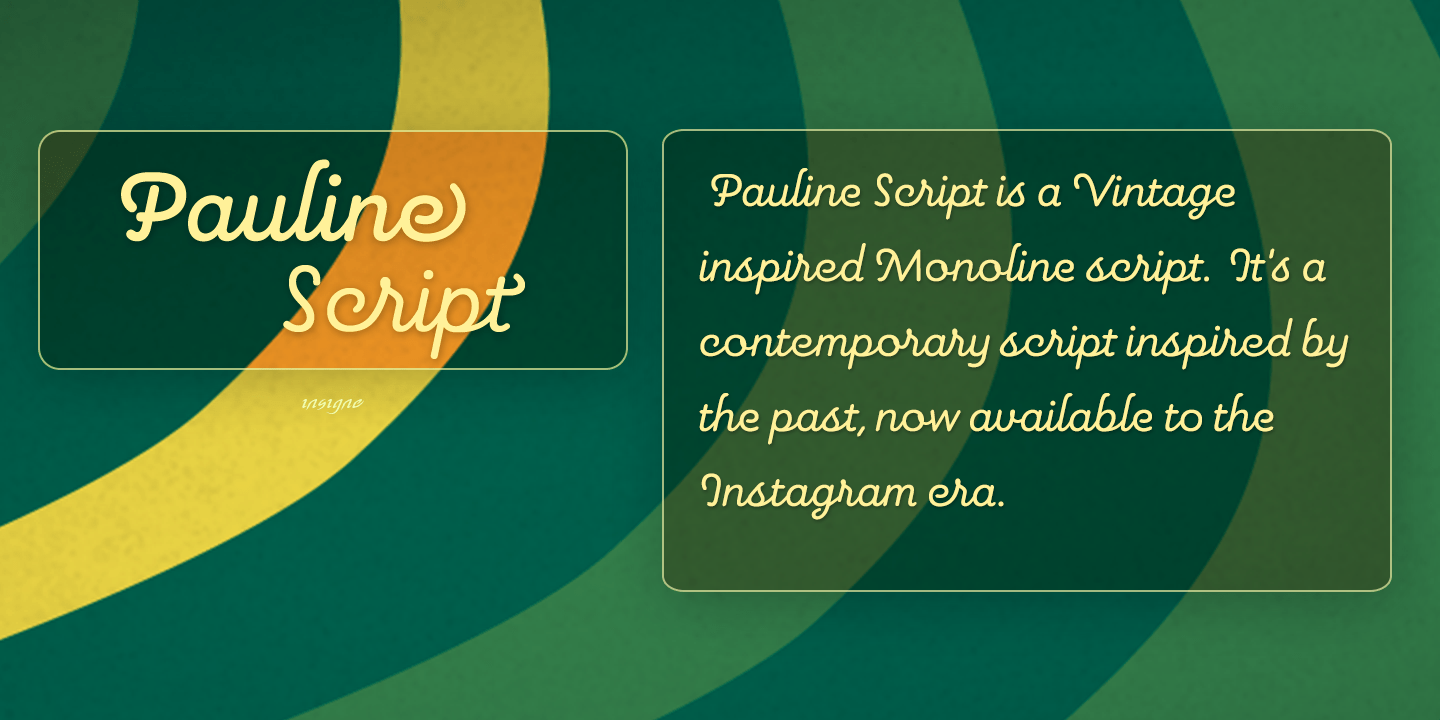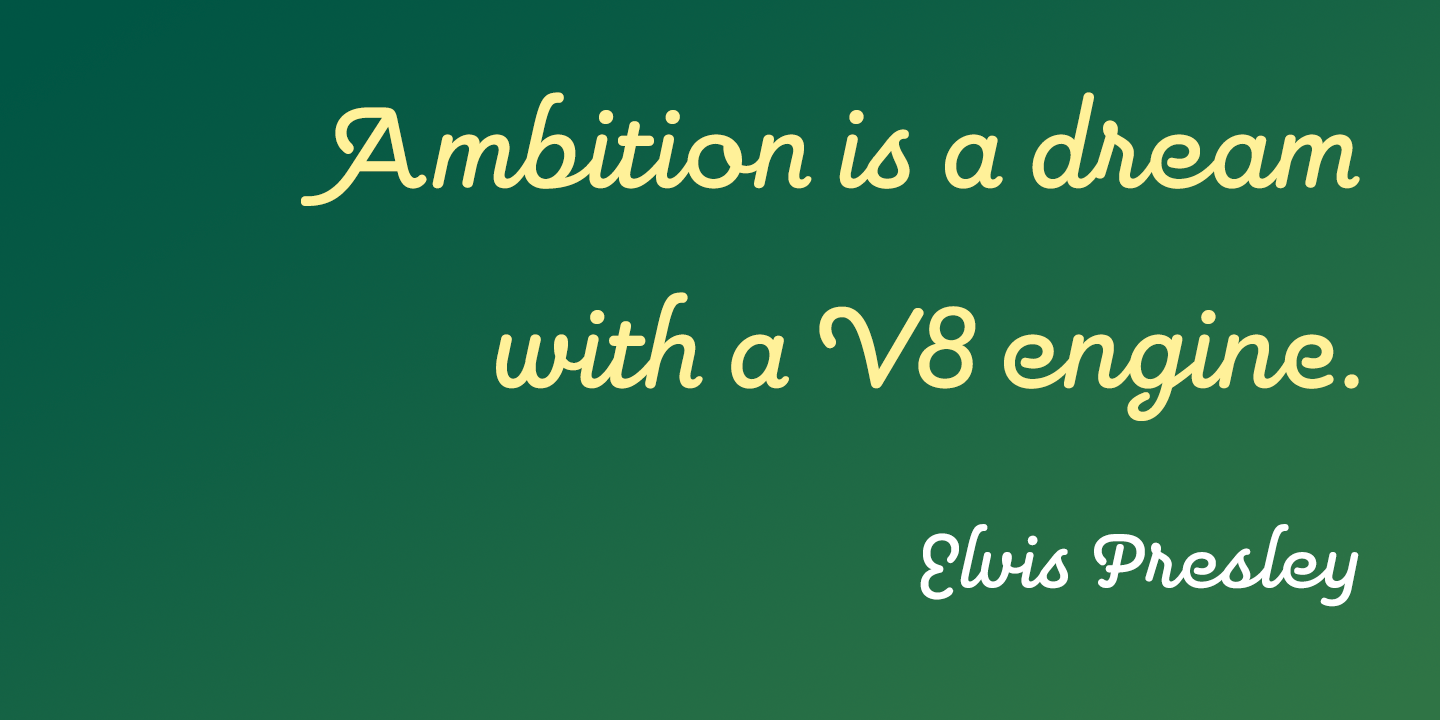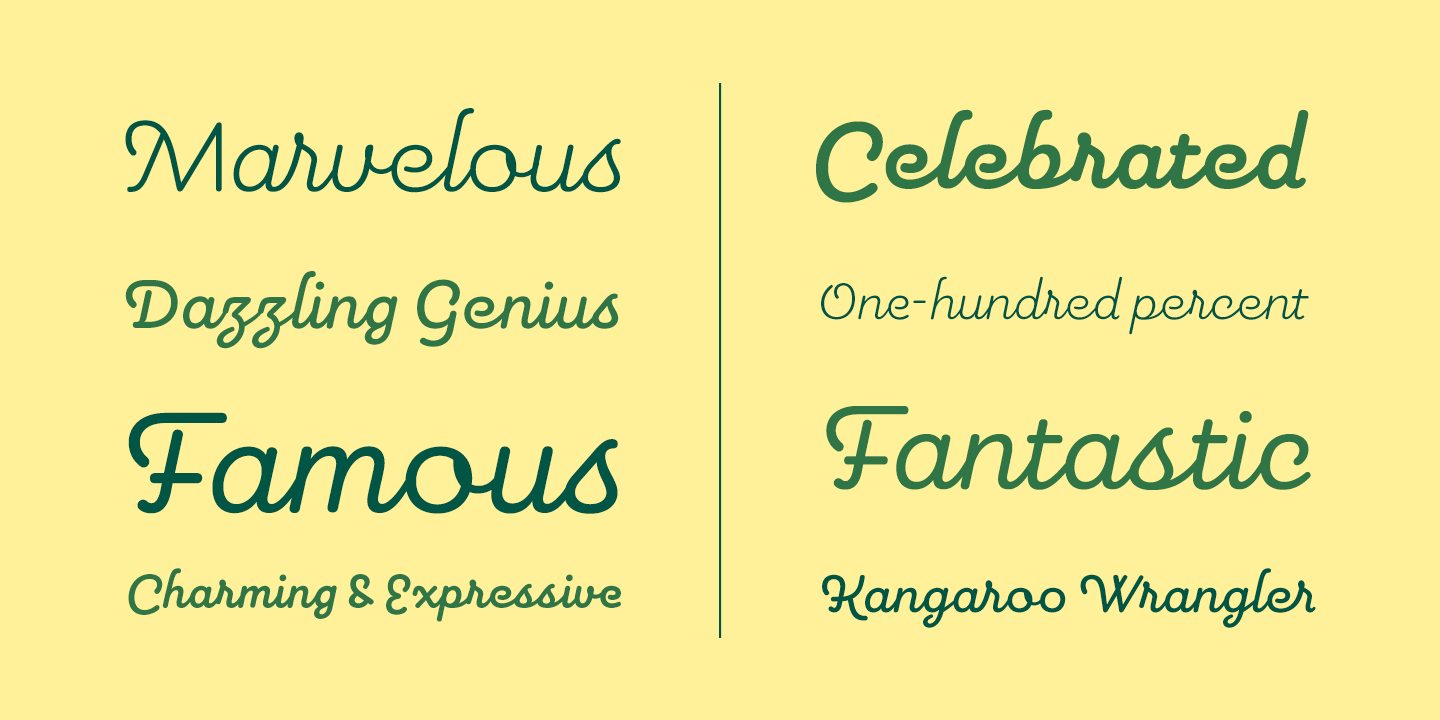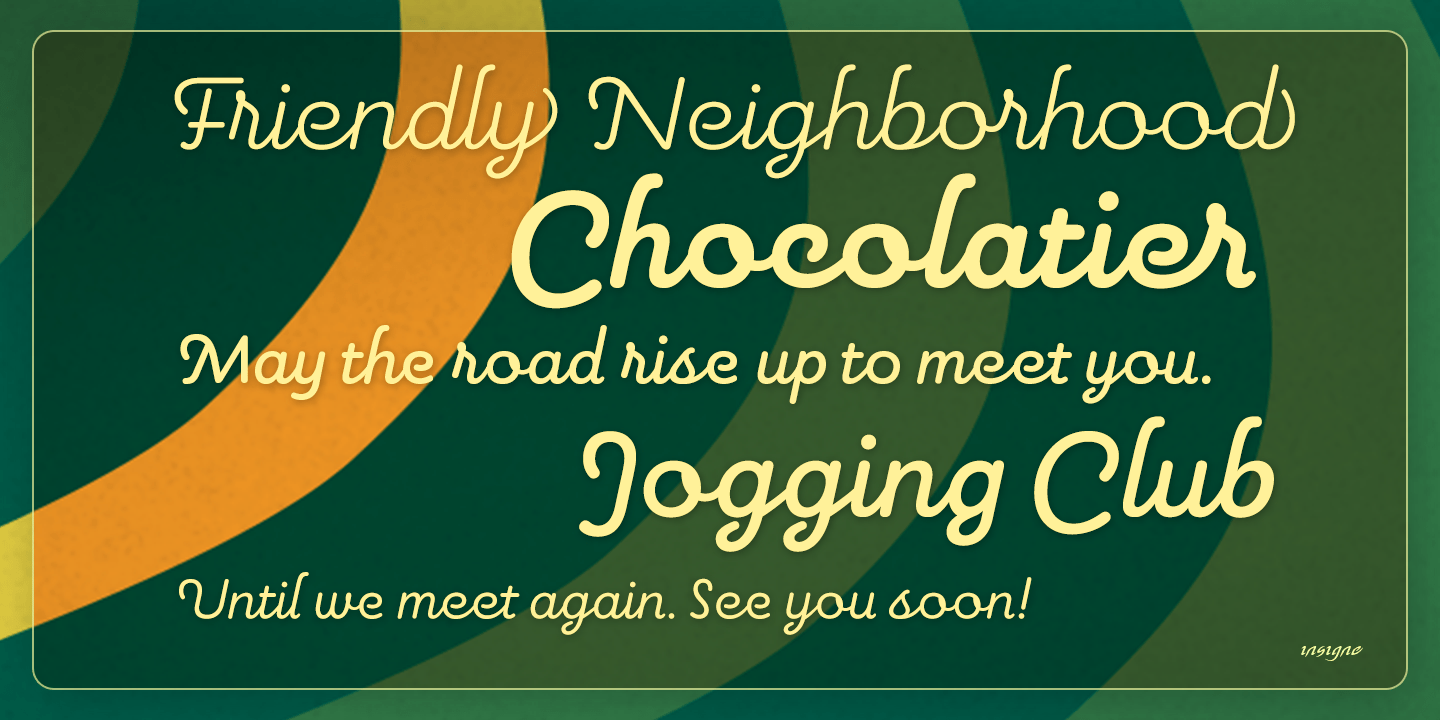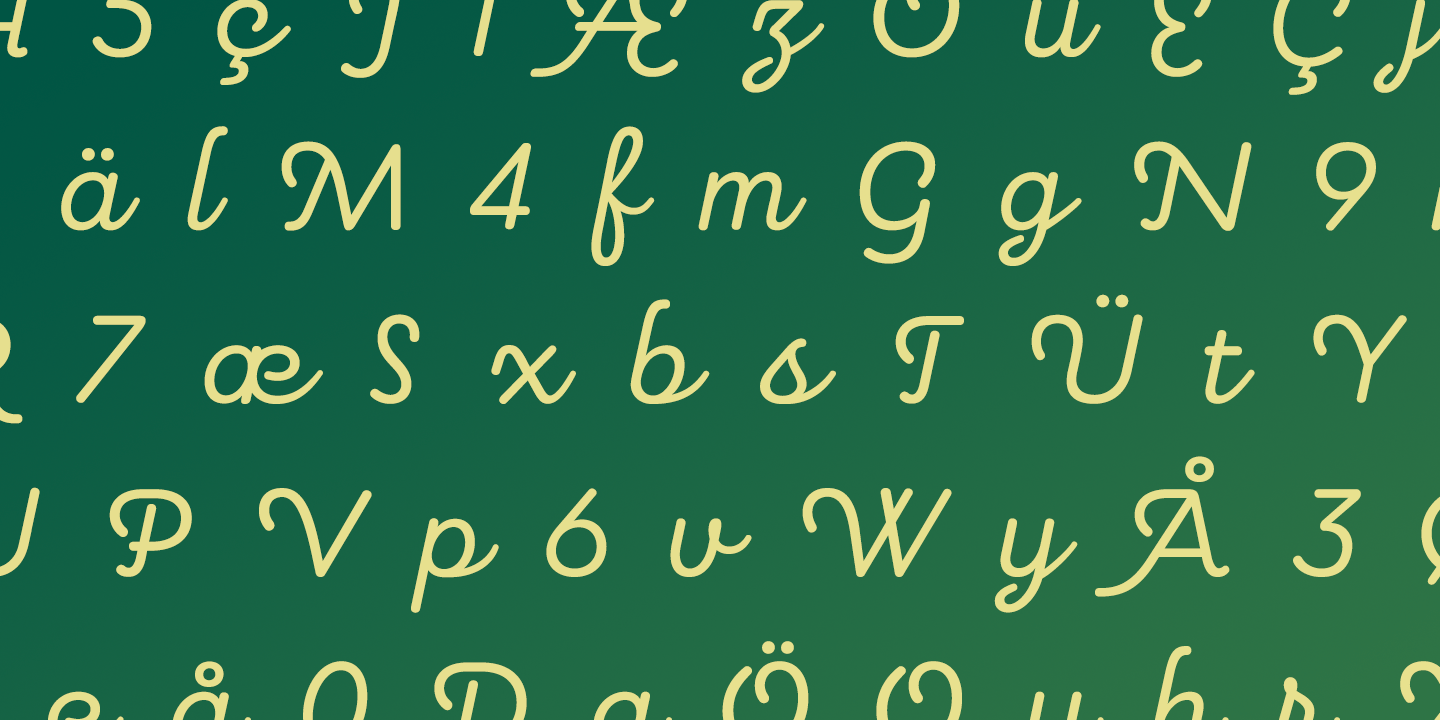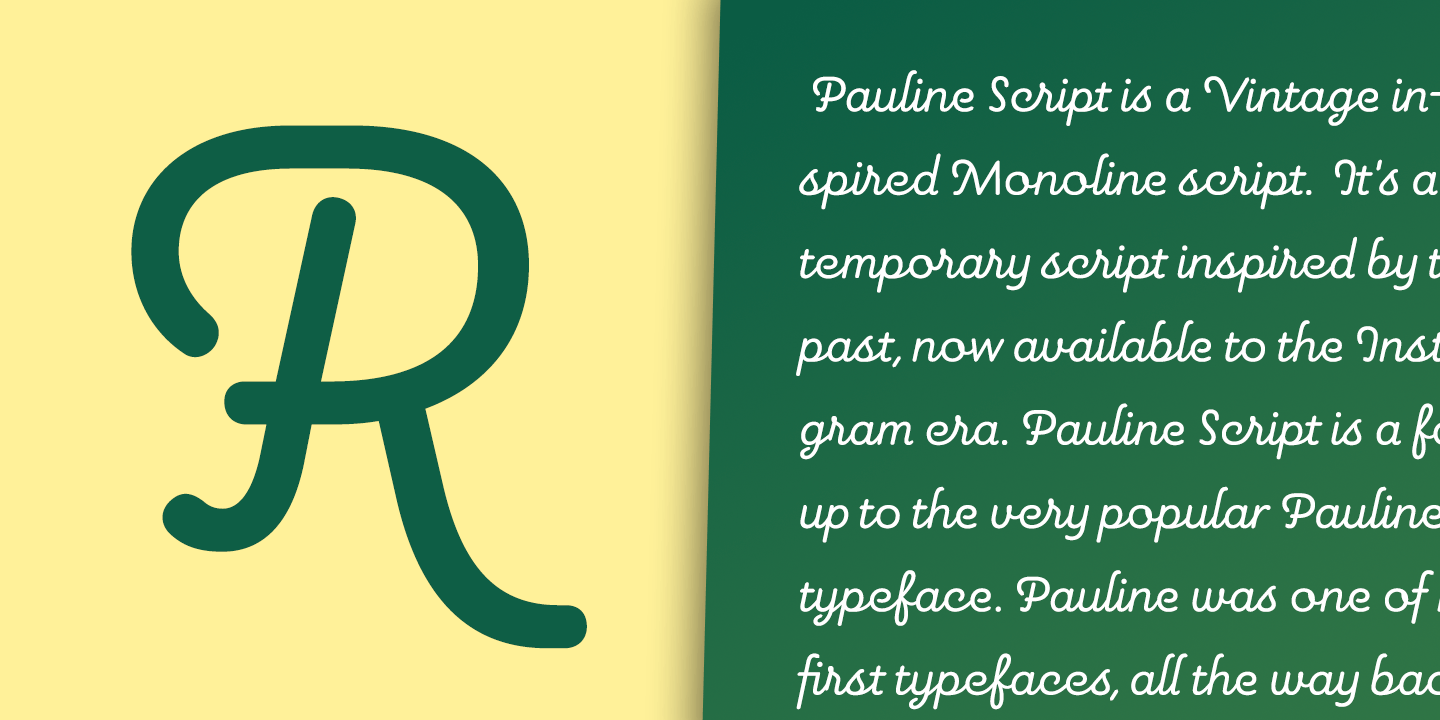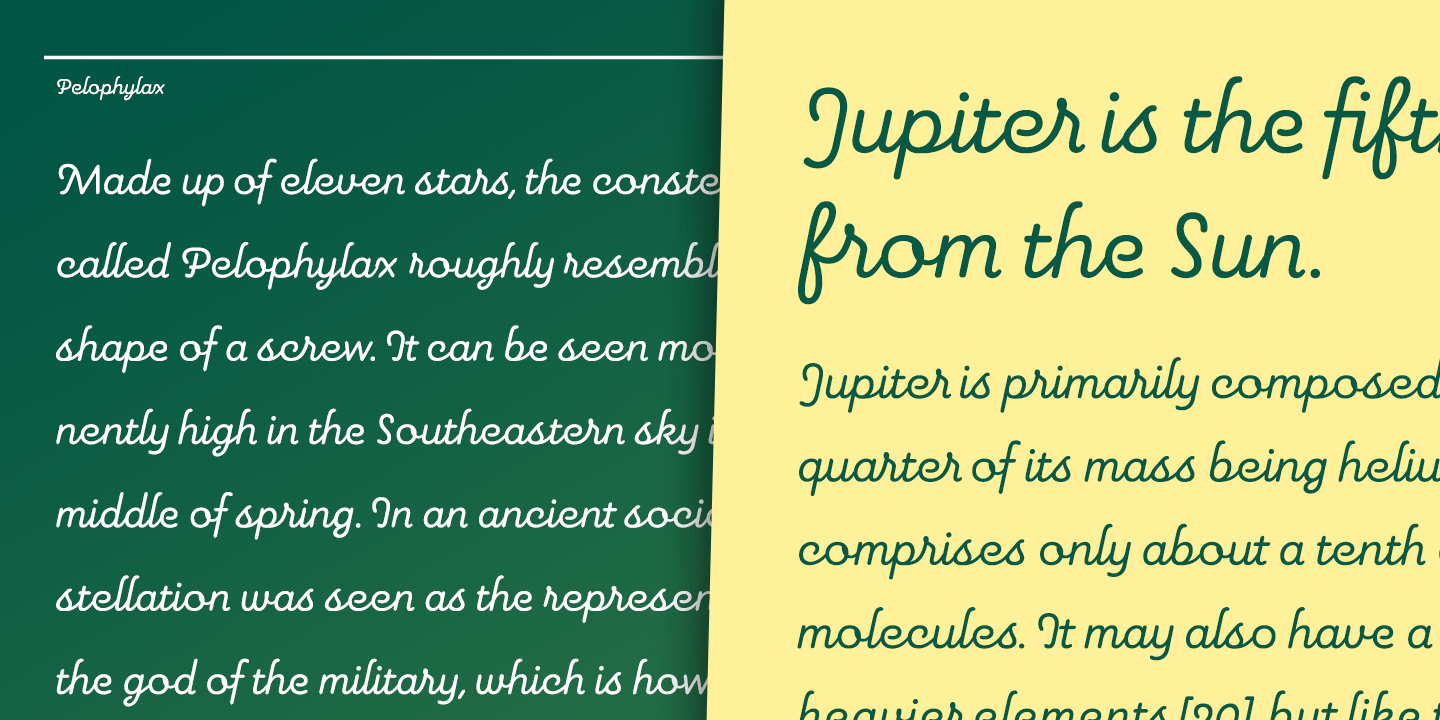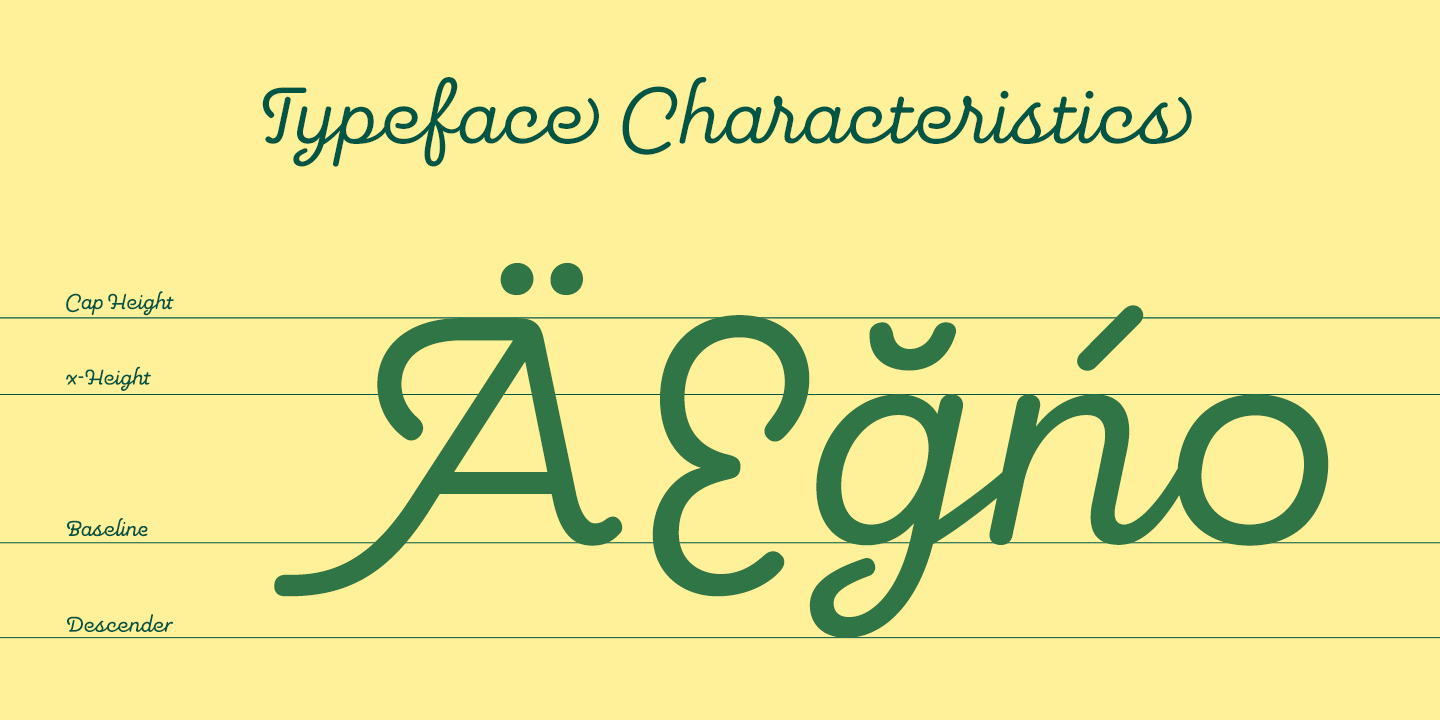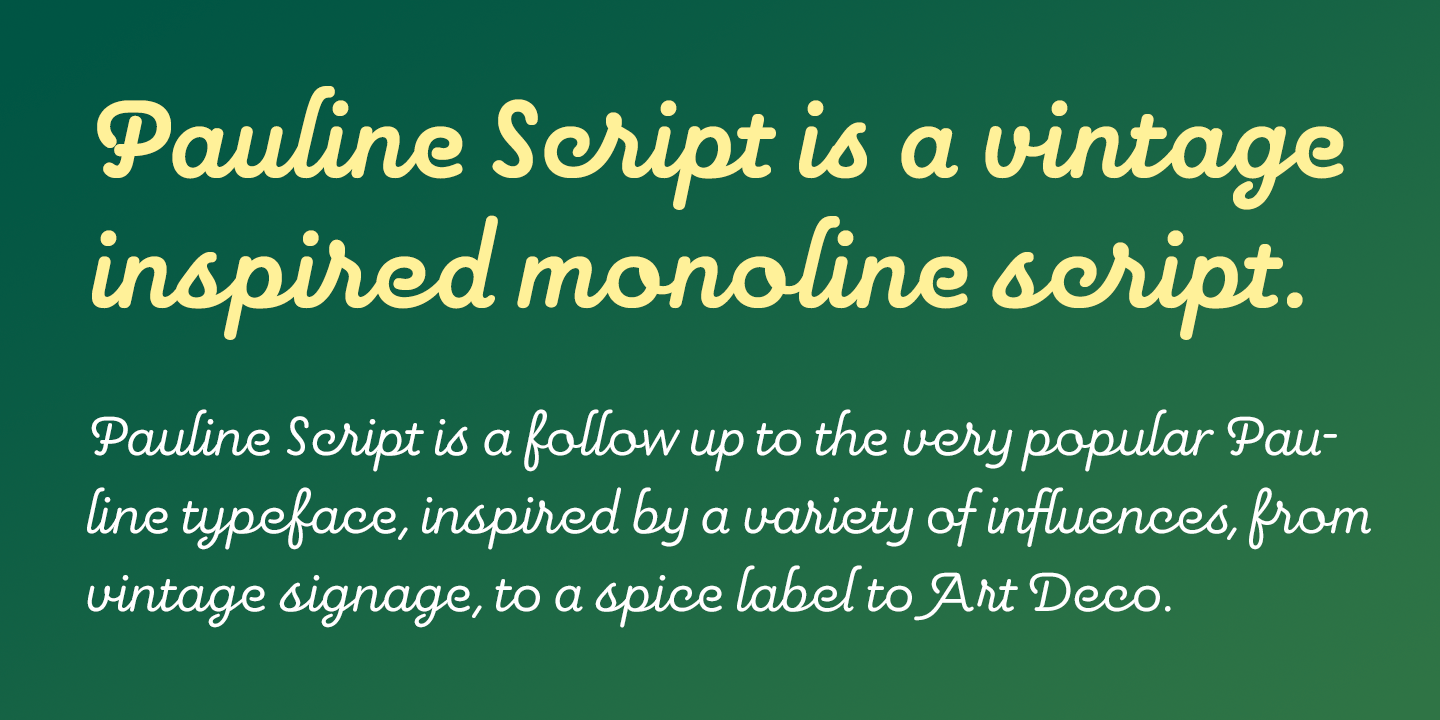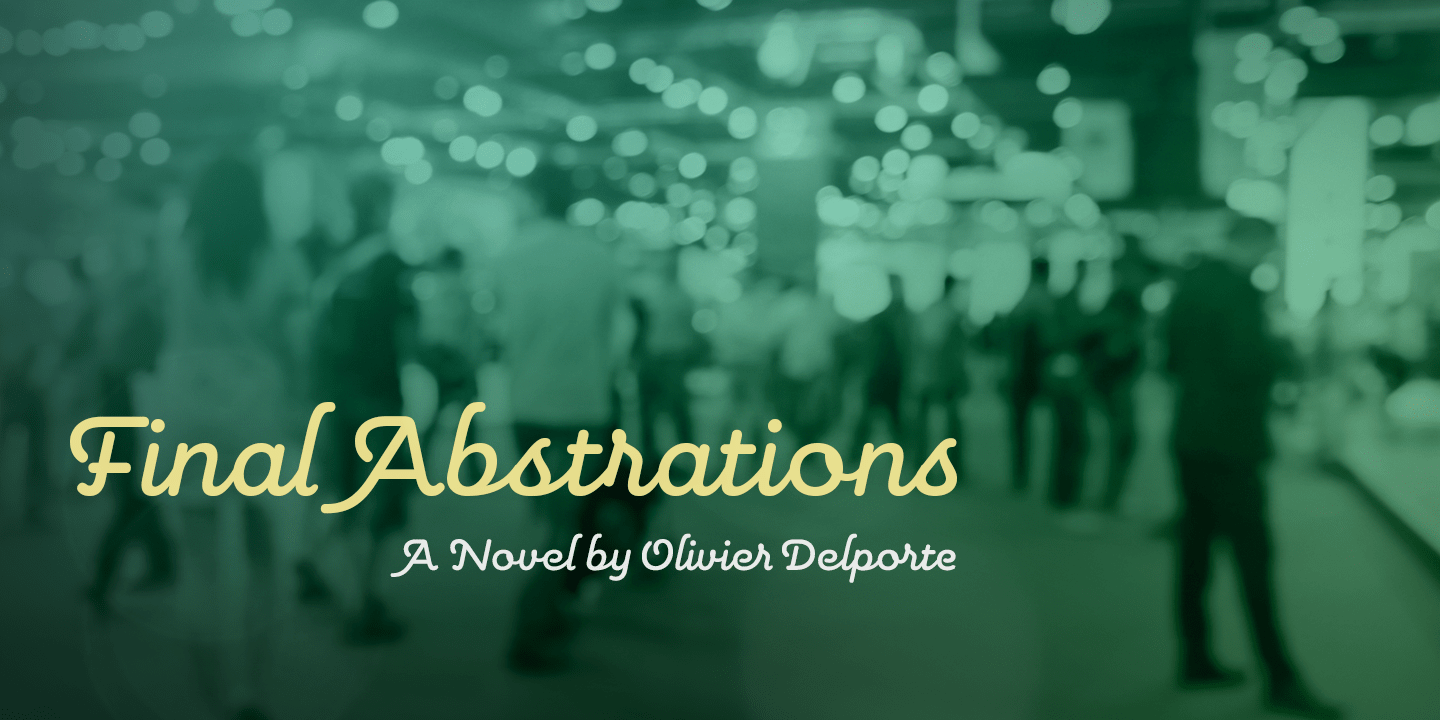
Pauline Script
Buy NowPauline Script is a Vintage inspired Monoline script. It's a contemporary script inspired by the past, now available to the Instagram era.
Pauline Script is a follow up to the popular Pauline typeface. Pauline was one of my first typefaces, all the way back in 2008. Inspired by a variety of influences, from Art Deco signage, to a simple spice label, Pauline Script has very little stroke contrast and was inspired by Retro connected scripts.
Over the course of its evolution, it started to take on more influence from geometric sans serif typefaces and lost the connectors. There's a strong geometric streak, derived from 1930s sans serifs like Futura. Tall ascenders and descenders give it a unique look. Now, this script version has now come full circle, utilizing the original sans serif face design and adding connectors back in, with an optically corrected dynamic slant.
For invitations, signage, logos or other applications, Pauline Script is there when you need something that stands out with a touch of class and a sense of uniqueness. Turning on Contextual Alternates (non connecting ending forms) and Discretionary Ligatures (better letter connections) is highly recommended. There's a wide range of weights available. It's a playful typeface with options to either have everything connected, or alternate forms which allow for letter connections that still maintain the sense of flow of a script. Includes plenty of ligatures!